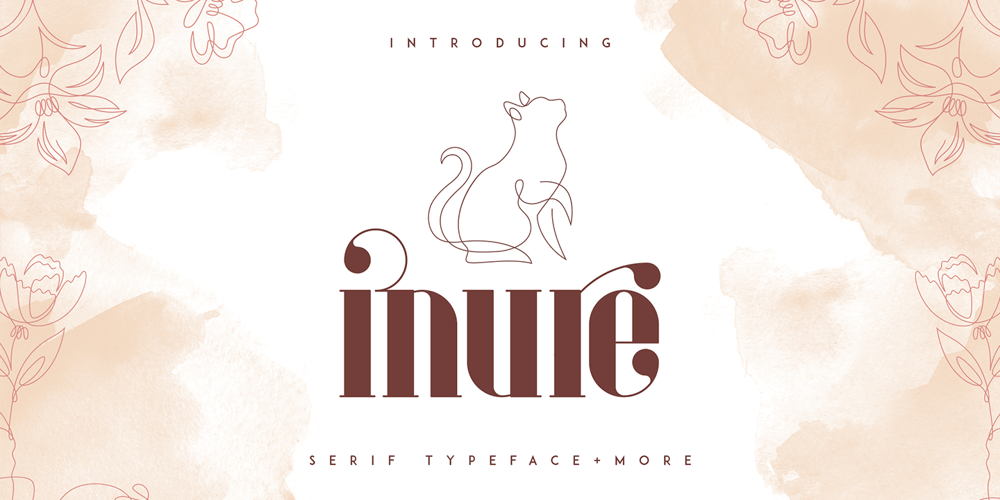
Inure Font Family was designed by Vladimir Fedotov, Plamen Petrov and published by VP Creative Shop. Inure contains 6 styles and family package options. Introducing Inure Typeface – 6 weightsInure is bold, vintage typeface with 6 weights and multilingual support. It’s a very versatile font that works great in large and small sizes.Inure is perfect for branding projects, home-ware designs, product packaging, magazine headers – or simply as a stylish text overlay to any background image. Uppercase, lowercase, numeral, punctuation & Symbol Hairline Light Regular Bold Extra Bold Black Ligatures Multilingual support Feel free to contact me if you have any questions!Mock ups and backgrounds used are not included.Thank you! Enjoy!